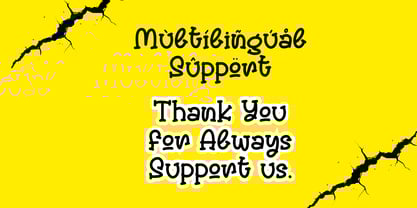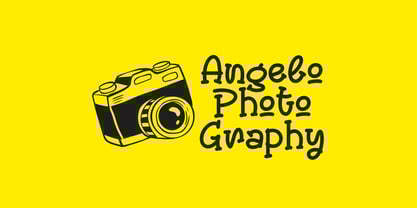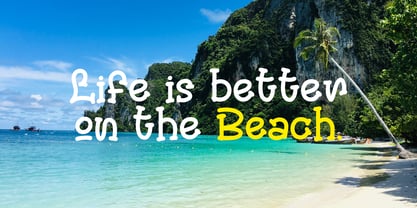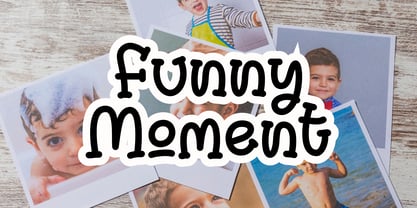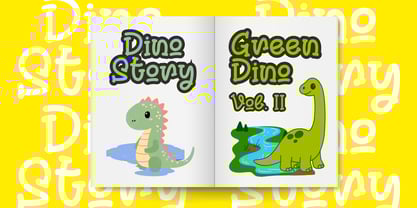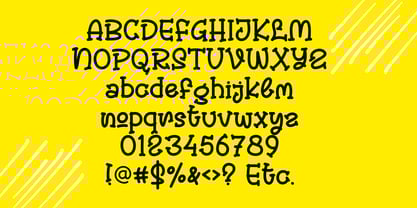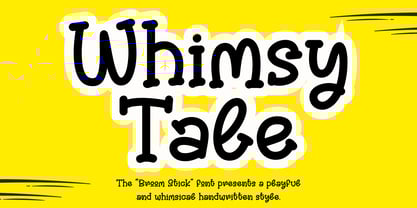
Whimsy Tale
by Letterafandi Studio
The Whimsy Tale Font Family was designed by Ahmad Afandi and published by Letterafandi Studio. Whimsy Tale contains 2 styles and family package options.
The Whimsy Tale font presents a playful and whimsical handwritten style with tall, rounded characters and a slightly irregular baseline. Its casual and friendly design gives off a lighthearted and fun vibe, making it perfect for children's books, cartoon titles, product packaging, and creative projects that aim to express joy and imagination. Features : • Support multilingual• Numerals & Punctuation • lowercase and uppercase letters • Works both on Mac & PC • Simple installations